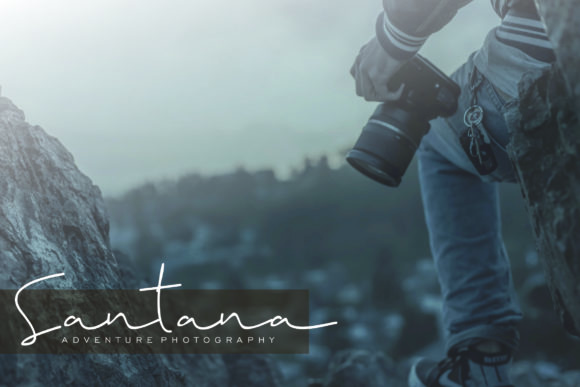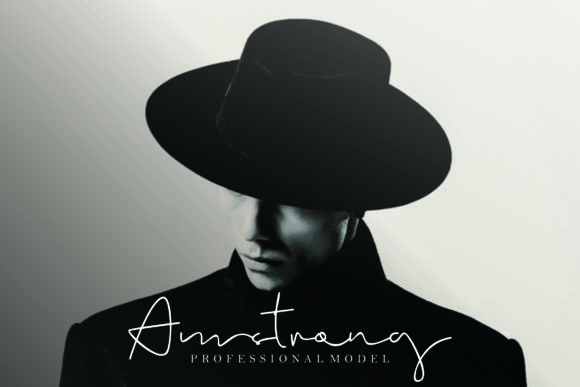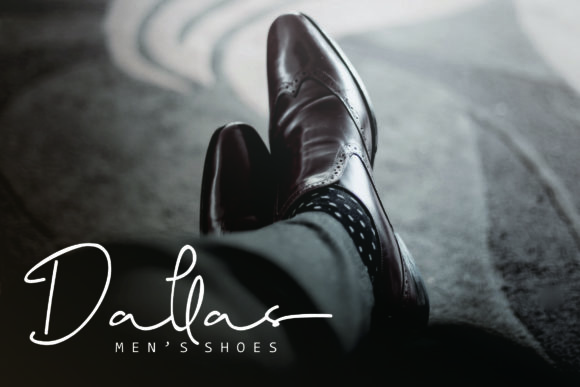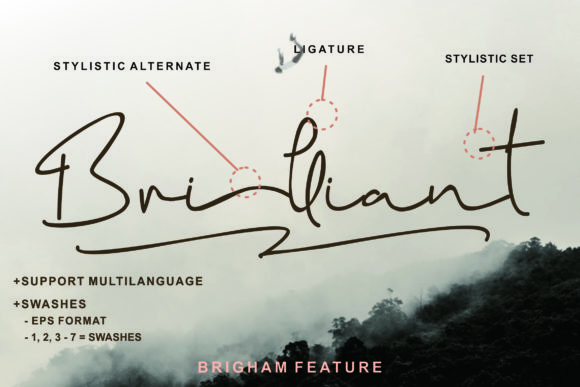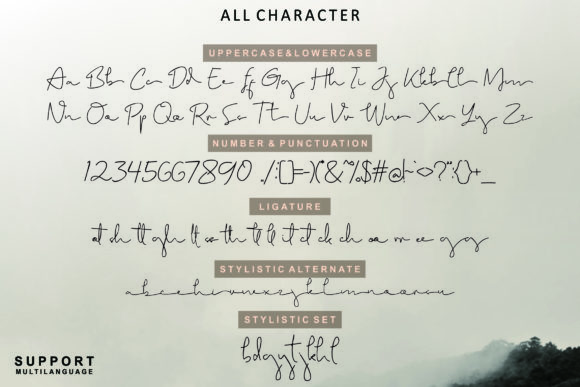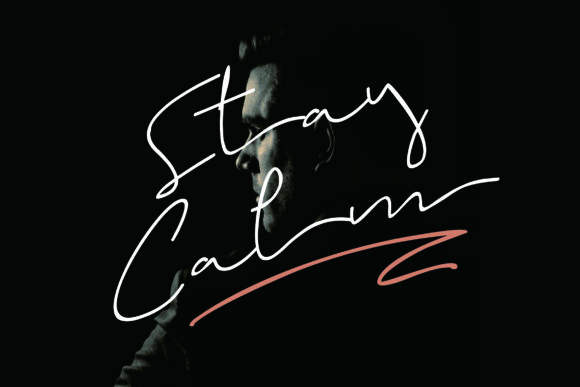
The Brigham Script Font: Elevate Your Designs with Elegance
I’ll never forget the moment I stumbled upon the perfect font for a client’s wedding invitation project. I had been searching for hours, trying out different fonts, but none seemed to capture the essence of the couple’s special day. That was until I discovered the Brigham Script Font. Its modern and smart feel instantly turned my design from ordinary to extraordinary. If you’re a designer, crafter, or creative hobbyist looking for a beautiful and stunning handwritten font, you’re in the right place.
A Personal Review: What I Love About Brigham
The Brigham Script Font has quickly become one of my go-to fonts for a variety of design projects. Here are a few things I love about it:
- ✨ Contemporary feel: Brigham has a modern and sleek look that instantly elevates any design project.
- ✅ Versatility: This font is perfect for a wide range of design projects, from wedding invitations to branding and packaging.
- 💫 Legibility: Despite its elegant and cursive nature, Brigham remains highly legible, even at smaller font sizes.
While I adore the Brigham Script Font, there are a few minor quirks to be aware of:
- 🤔 Limited use of all-caps: While the font does come with all-caps letters, they can appear a bit rigid and less elegant than the lowercase letters.
- ⚠️ Glyph limitations: Some users have reported that the font could benefit from a wider range of glyphs and special characters.
The Story Behind Brigham: Designer Inspiration
The Brigham Script Font was created with the goal of crafting a modern, elegant, and highly legible handwritten font. Inspired by the beauty of everyday handwriting, the designer aimed to create a font that would be both versatile and stylish. While the real story behind Brigham’s creation may be unknown, its impact on the design community is undeniable.
| What makes Brigham a great choice for wedding designs? | Brigham’s elegant and refined feel makes it perfect for wedding invitations, save-the-dates, and other wedding-related designs. |
| Is Brigham suitable for body text? | While Brigham is beautiful, it’s best suited for headlines and short paragraphs. For longer body text, consider a more traditional serif or sans-serif font. |